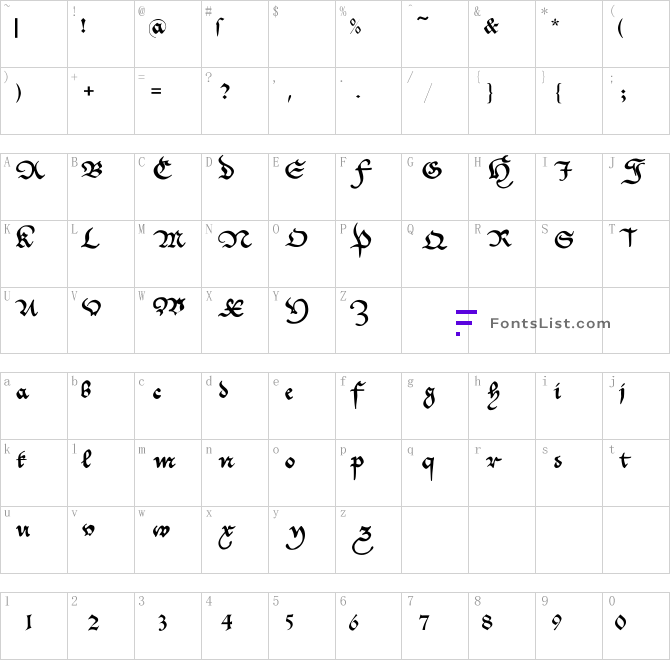
- Font Name:Cantzley Fraktur
Cantzley-Fraktur.ttf is a very beautiful artistic font, Cantzley-Fraktur.ttf is widely used in the design and printing of various books and pictures,Cantzley-Fraktur.ttf has a strong visual impact,Cantzley-Fraktur.ttf is a commonly used font in newspapers, magazines and books, and is used in posters, e-commerce Poster design, store design, logo design, font design and other fields.Cantzley-Fraktur.